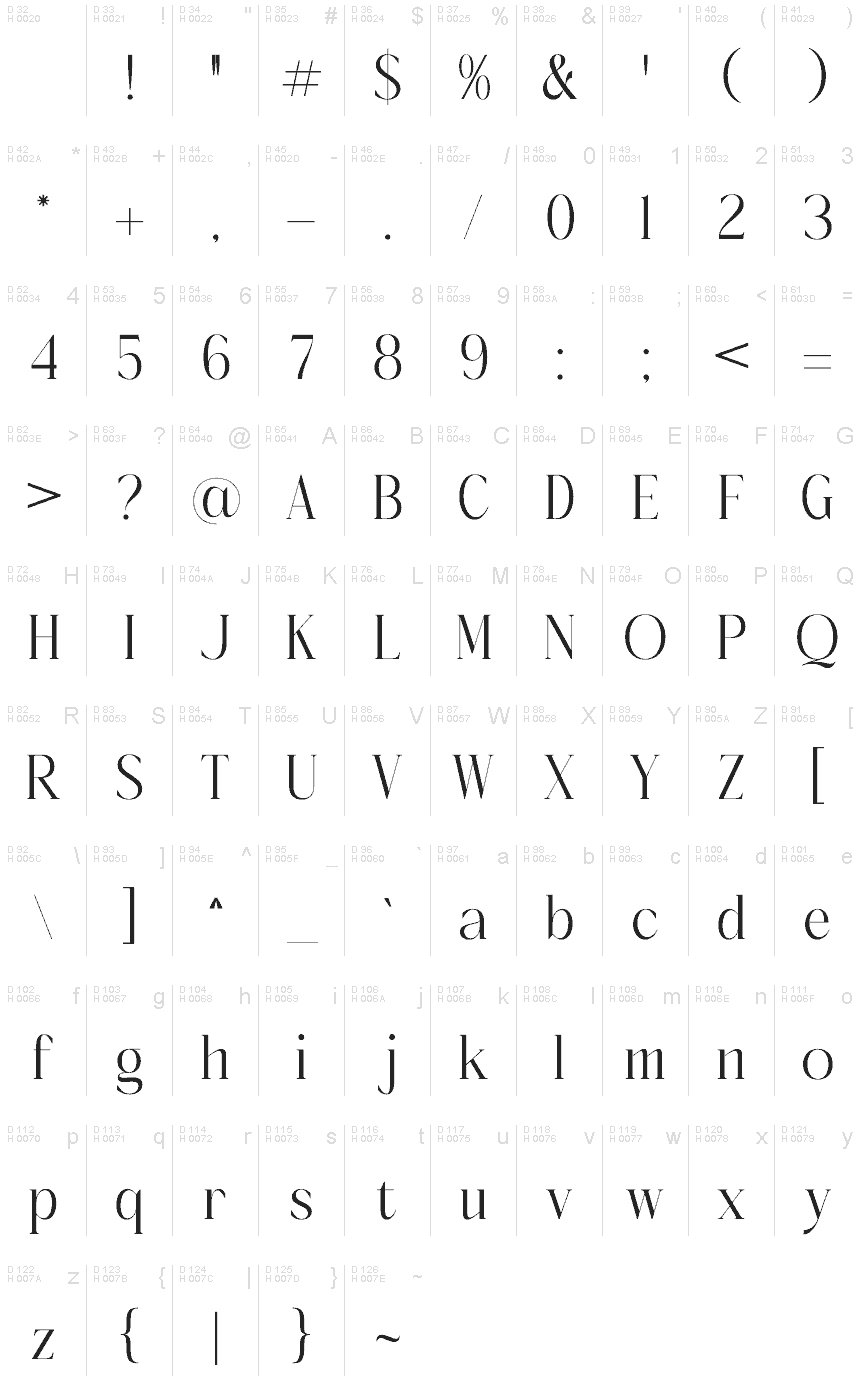
Molerta
Molerta font by Storytype Studio is an elegant serif font with classical charm. Its graceful curves and refined serifs lend a timeless beauty to any project, capturing attention with sophistication and subtlety.